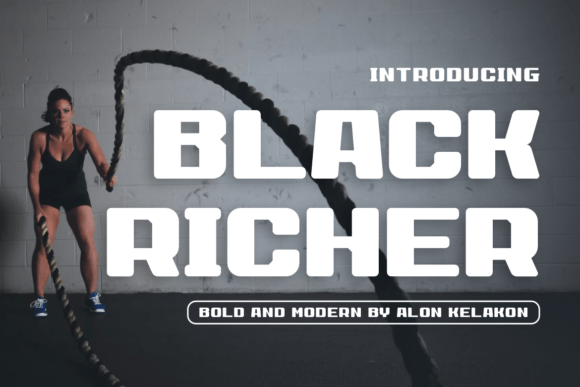
Introducing Black Richer Font - Unleash the Boldness in Every Word
In a world saturated with ordinary fonts, there exists a masterpiece that transcends the boundaries of creativity - Black Richer Font. This sans serif masterpiece is not just a font; it's a revolution in typography, designed to make your words leap off the screen and dance with unparalleled elegance.
Black Richer Font - The Epitome of Strength and Sophistication
For those seeking a font that embodies boldness and sophistication, your search ends here. Black Richer Font is a visual symphony, meticulously crafted to command attention and leave a lasting impression. Its thick, confident strokes exude an aura of power and authority, making it the ideal choice for logos, posters, movie titles, and any design demanding an assertive presence.
A Font with a Thousand Faces - Versatility Redefined
Black Richer Font is a chameleon in the world of fonts, adapting effortlessly to a myriad of design styles. Whether you're creating an edgy flyer, a captivating social media post, or a sleek website, this font possesses the versatility to elevate your designs to new heights. Unleash your creativity and witness the transformative power of Black Richer Font.
The Perfect Font for Making a Statement
In a world clamoring for attention, it's not enough to simply exist - you need to make a statement. Black Richer Font is your secret weapon, empowering you to make a lasting impression with every word you write. Whether it's a powerful quote, a captivating headline, or an unforgettable logo, this font will amplify your message and leave your audience spellbound.
Make Your Designs Sing with Black Richer Font
Black Richer Font is more than just a collection of glyphs; it's an orchestra of visual harmony, ready to orchestrate a symphony of emotions with every design you create. Its bold lines and striking curves will captivate your audience, transporting them into a realm of visual delight.
Join the Creative Revolution with Black Richer Font
Don't settle for ordinary fonts that fade into obscurity. Embrace the boldness of Black Richer Font and embark on a creative journey where your designs will shine with unparalleled brilliance. As an e-commerce SEO expert, I wholeheartedly recommend this font to anyone seeking to make a statement and leave an indelible mark on the world.